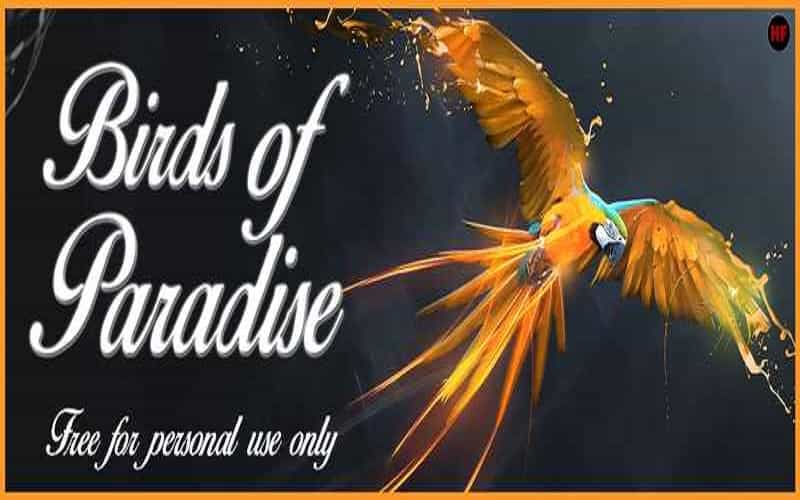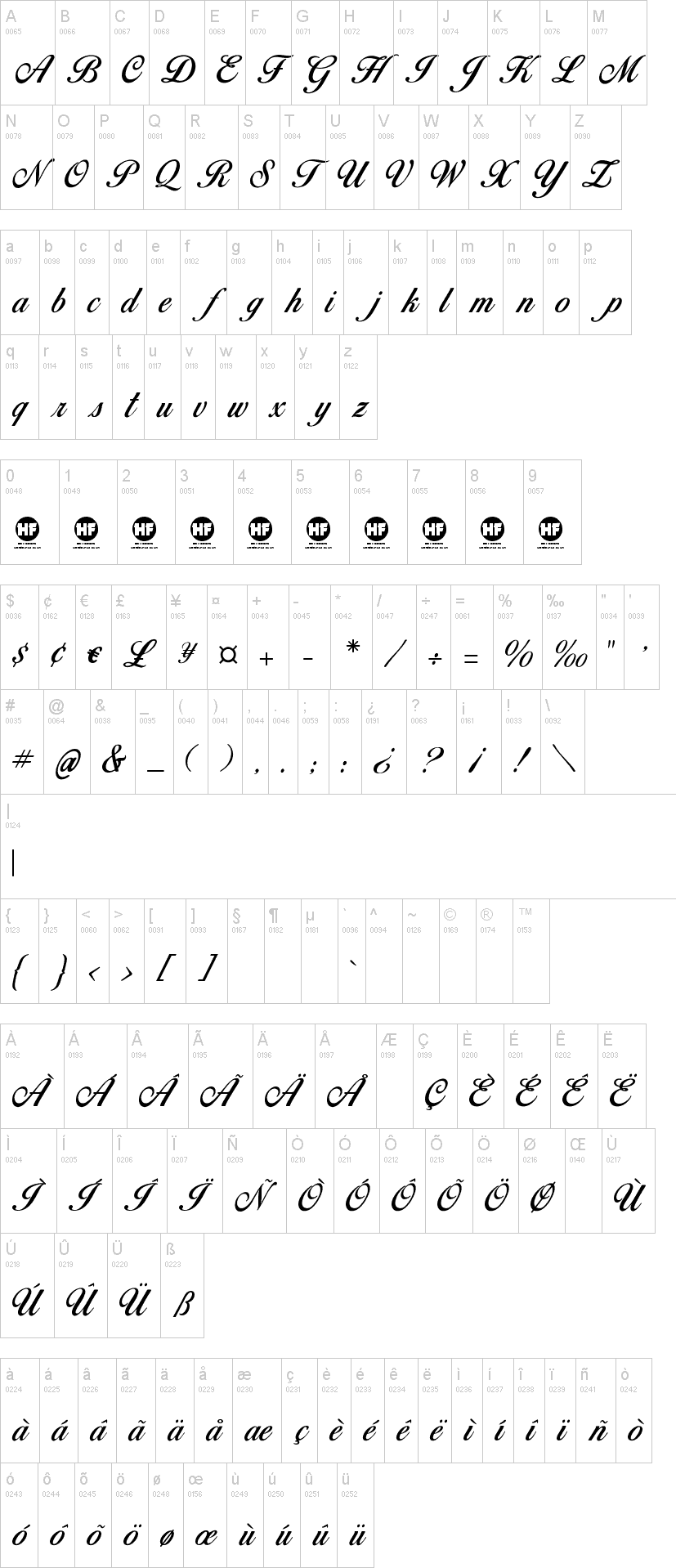
Birds of Paradise is an elegant Calligraphy Font by Herofonts, which is free for download with the clause that it can only be used for personal usage. The free version consist all the lower-case characters and additional unique characters to spice them up.